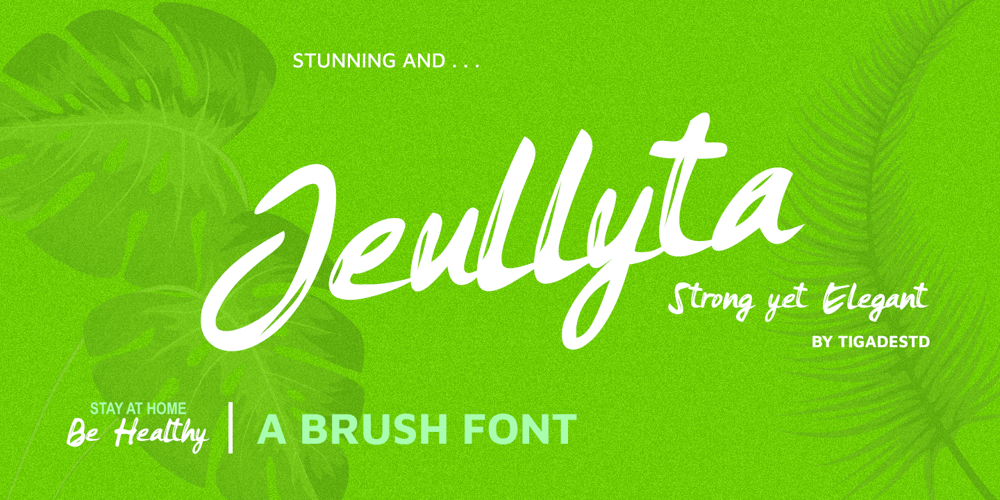
Jeullyta Font Family was designed by Doli Harahap and published by Tigade Std. Jeullyta contains 2 styles and family package options. The name Jeullyta is taken from the Indonesian language but with modified pronunciation. The correct one is Jelita which means “Gorgeous”.I named this font Jeullyta because it is gorgeous, from the initial process until the end product. It is a strong yet nice looking script font and can be considered a brush font too with the shadow on the body of each glyph.This font is suitable to be used for: Posters Advertisement Book Cover and much more It comes with hundreds of stylistic alternate glyphs to enhance the feel of your design. Enjoy!!